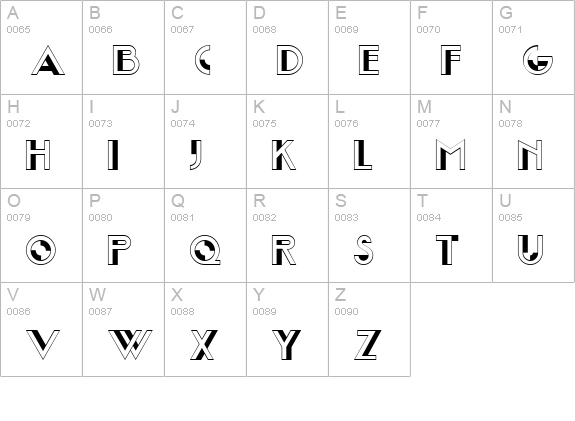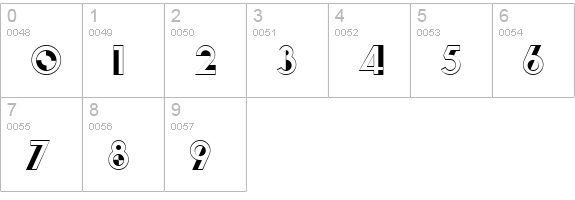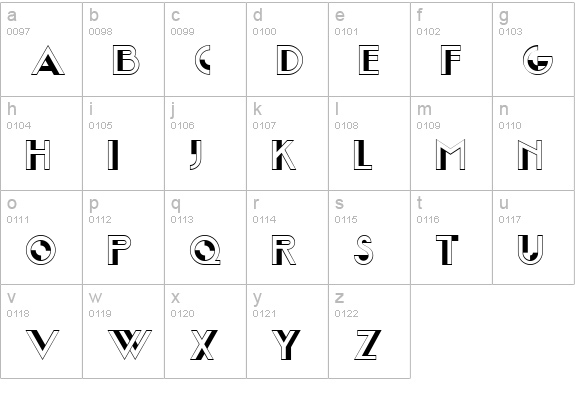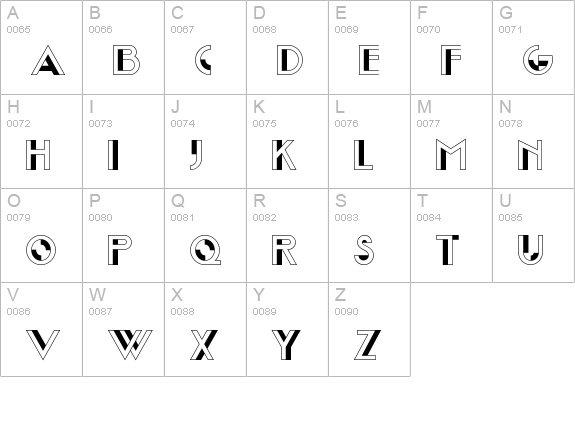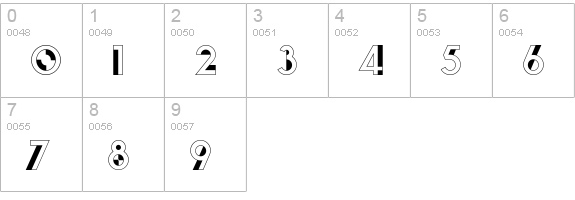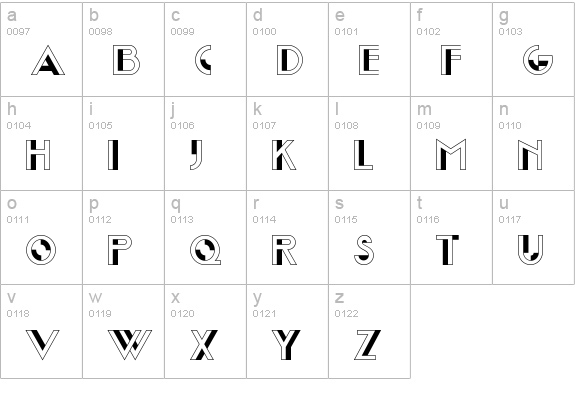
Joost A Millionaire NF Font Details
The Joost A Millionaire NF font exudes luxury and sophistication with its elegant, yet bold design. This striking typeface is perfect for adding a touch of glamour to your projects, whether it be invitations, branding materials, or editorial designs. What sets Joost A Millionaire NF apart is not only its timeless aesthetic, but also the fact that it is available for free download at FontsMarket.com. This means you can elevate your creations with this premium font without breaking the bank. Embrace the opulence of Joost A Millionaire NF and make a statement with your typography today. Download it for free and unleash your creativity with this exquisite typeface.